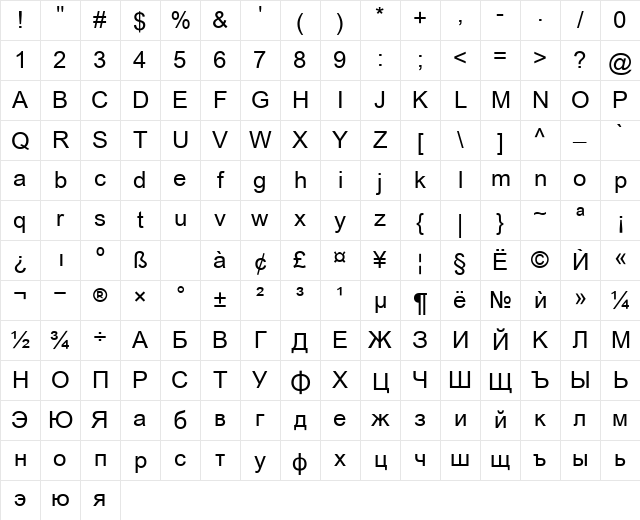
SP_Aries Regular
Design Context for SP_Aries
SP_Aries is a composed and adaptable typeface that performs quietly and consistently across a wide range of design contexts.